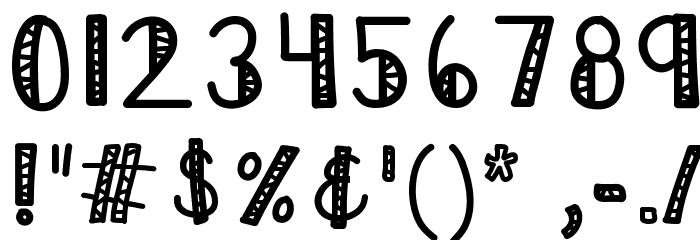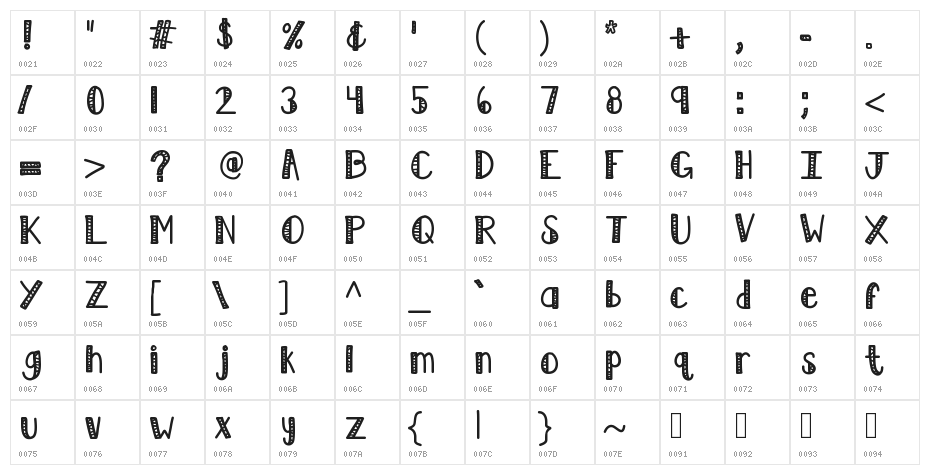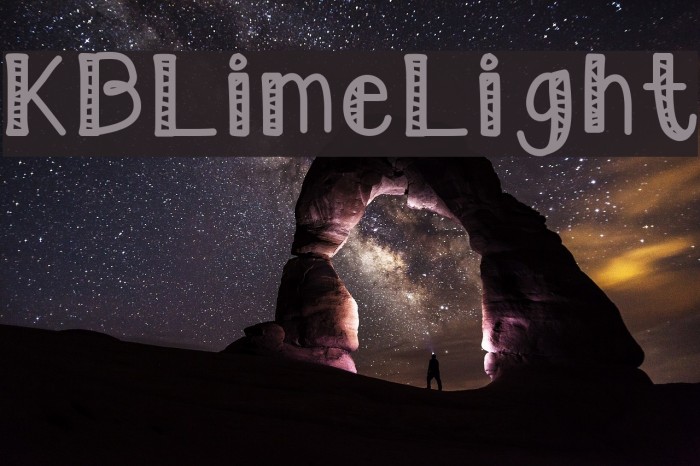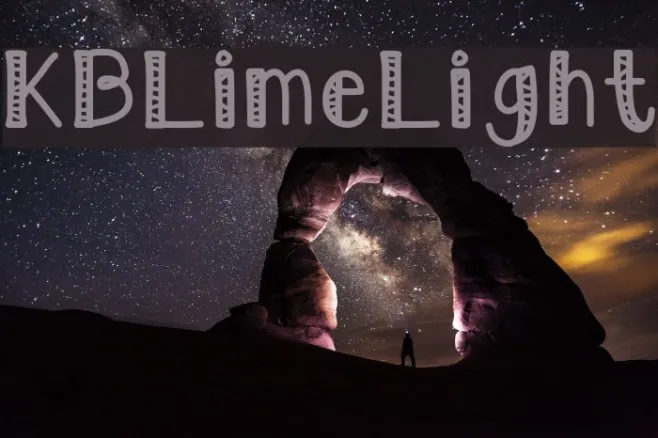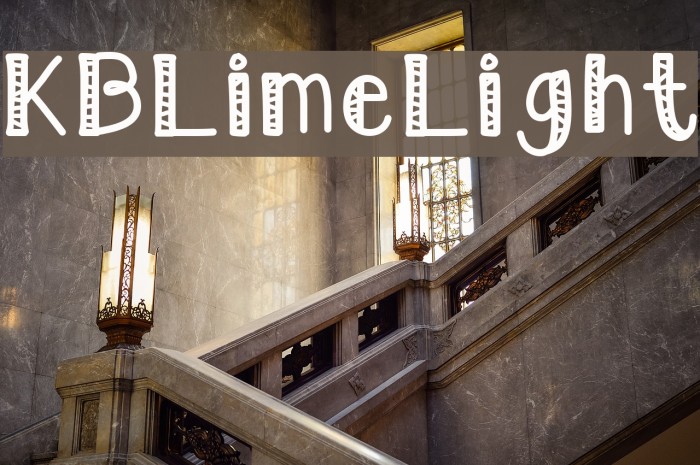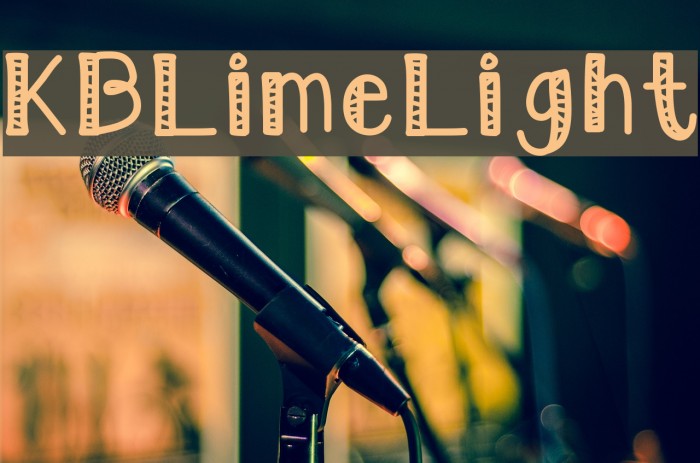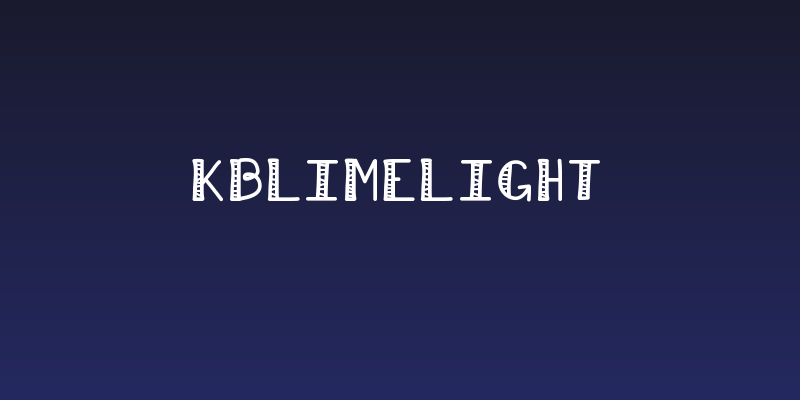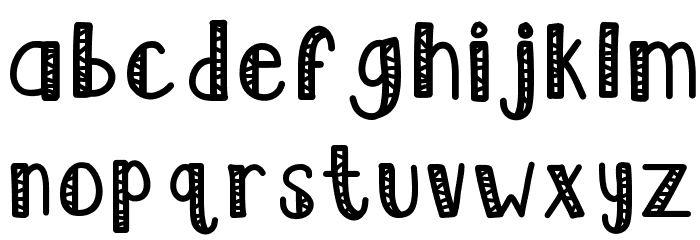
KBLimeLight Font
KBLimeLight Description
This playful and whimsical font features a unique design with a hand-drawn aesthetic. Each character is adorned with a series of dots or lines within the strokes, giving it a textured and lively appearance. The uppercase letters are bold and slightly irregular, adding to the font's charm. The lowercase letters maintain the same playful style, with rounded edges and a consistent line weight. Numbers and special characters follow the same decorative pattern, ensuring a cohesive look across all text elements. This font is perfect for projects that require a fun and engaging visual style, such as children's books, playful branding, or creative posters.
| Proposed Projects | Ideal for children's books, playful branding, creative posters, and fun invitations. |